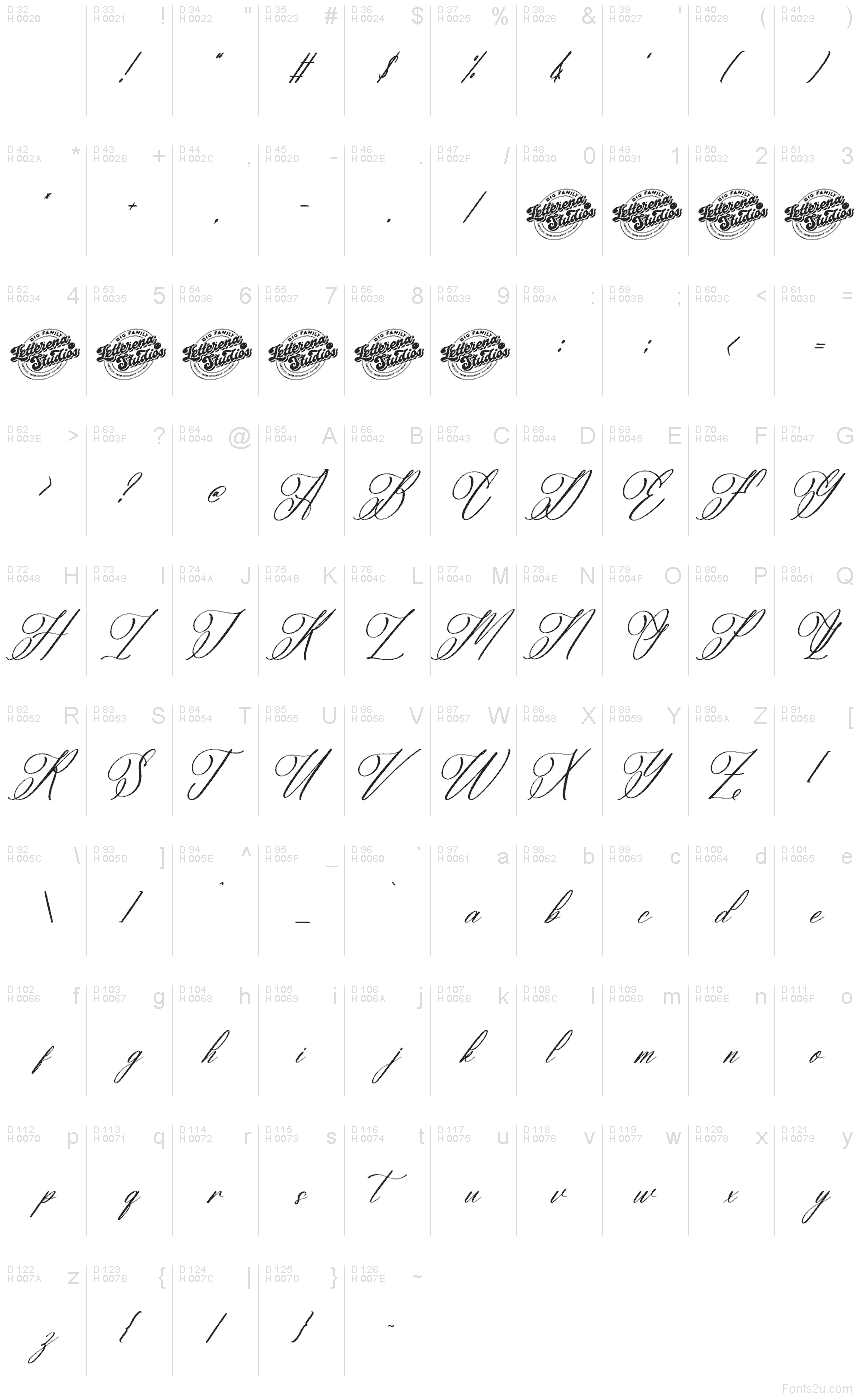
Dahlianti Angelina DEMO VERSION Italic
Dahlianti Angelina Italic font by Letterena Studios is a free calligraphy typeface that captures the sweep and grace of hand-lettered invitations. Its long, looping strokes and fine, inky lines feel like they were written with a pointed pen on thick cotton paper, giving every word a sense of ceremony and care. The Dahlianti Angelina family’s flowing rhythm keeps the script readable while still feeling luxuriously ornate and romantic.
Using Dahlianti Angelina Italic, this free font shines on wedding invitations, save-the-dates, event stationery, logos for boutique brands, packaging for cosmetics, and elegant social media quotes. The letters connect smoothly, creating ribbons of script that feel both delicate and confident. For a polished hierarchy, pair this calligraphy font with a clean serif or simple sans in smaller sizes for body text, and let Dahlianti Angelina take center stage in names, headlines, and signature lines.